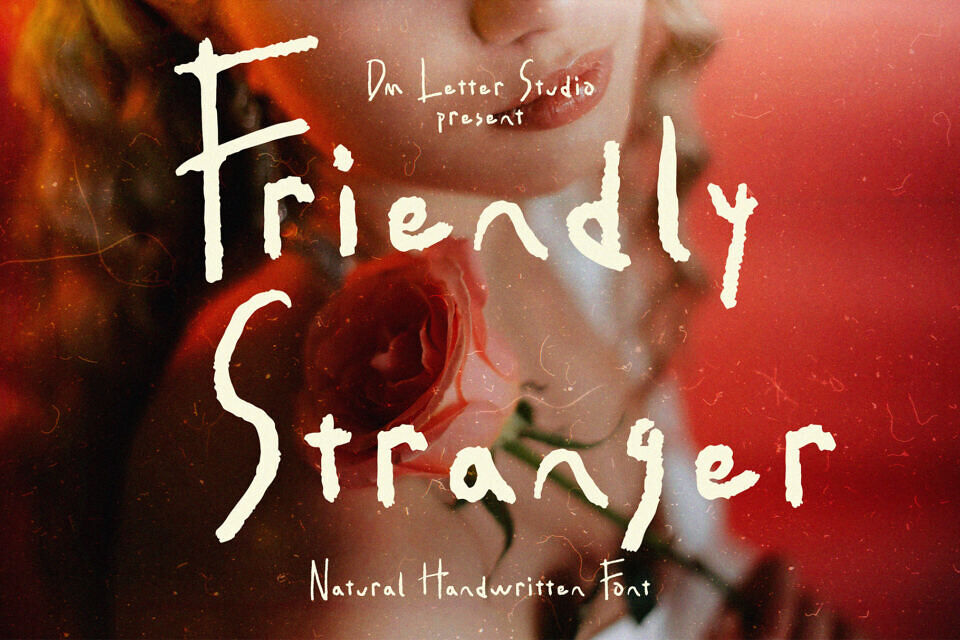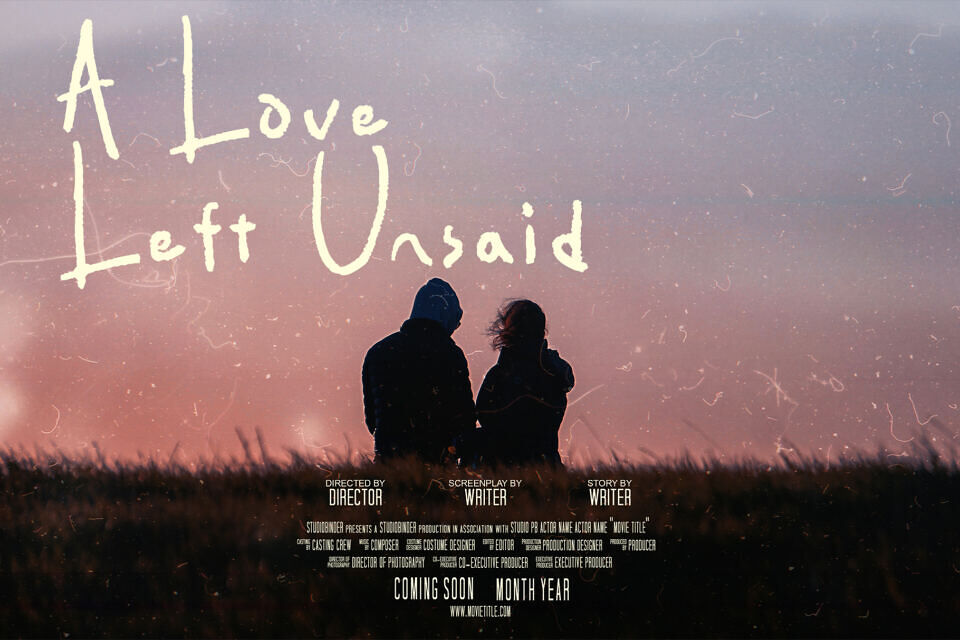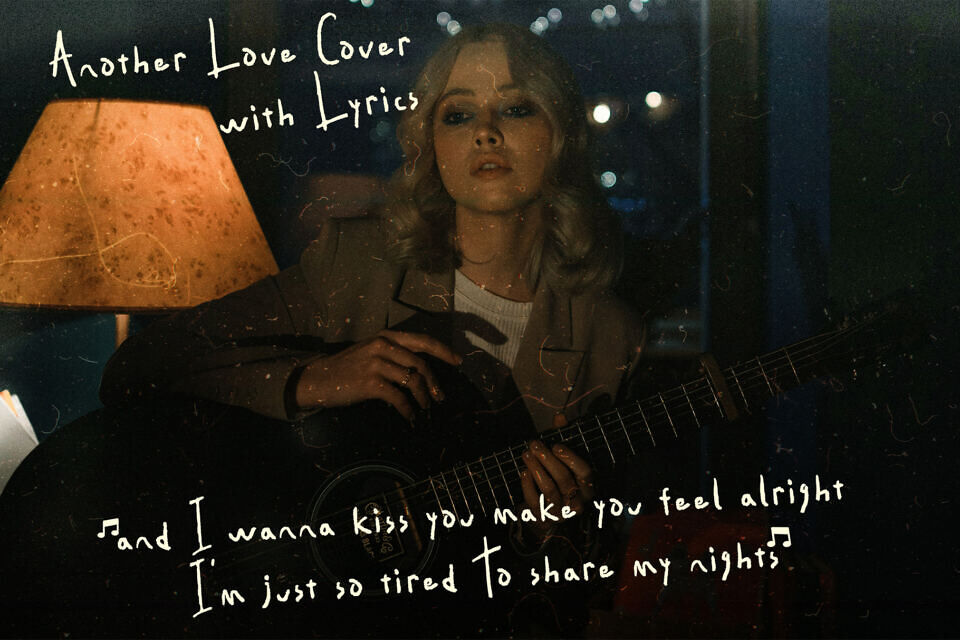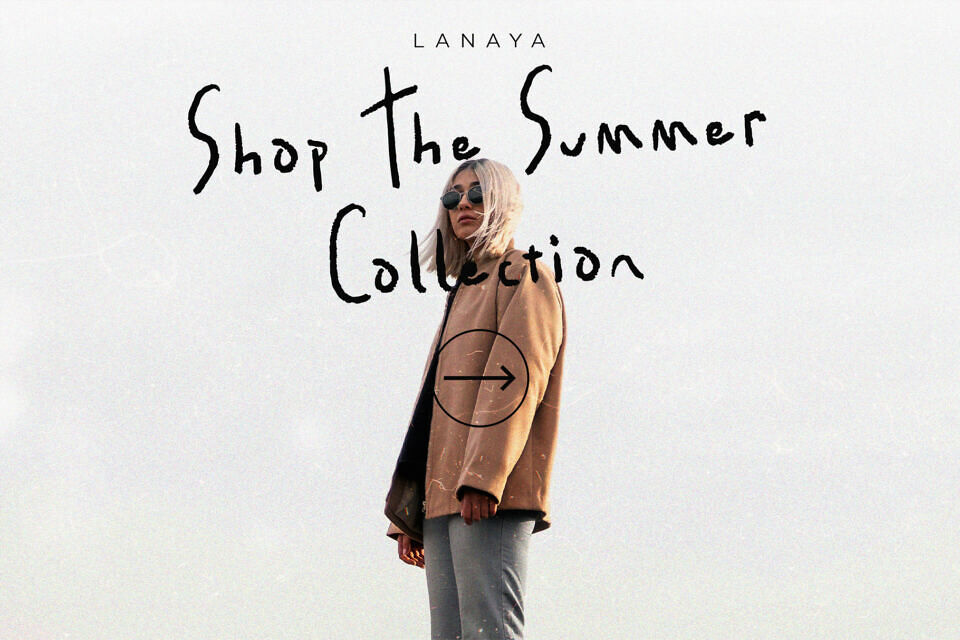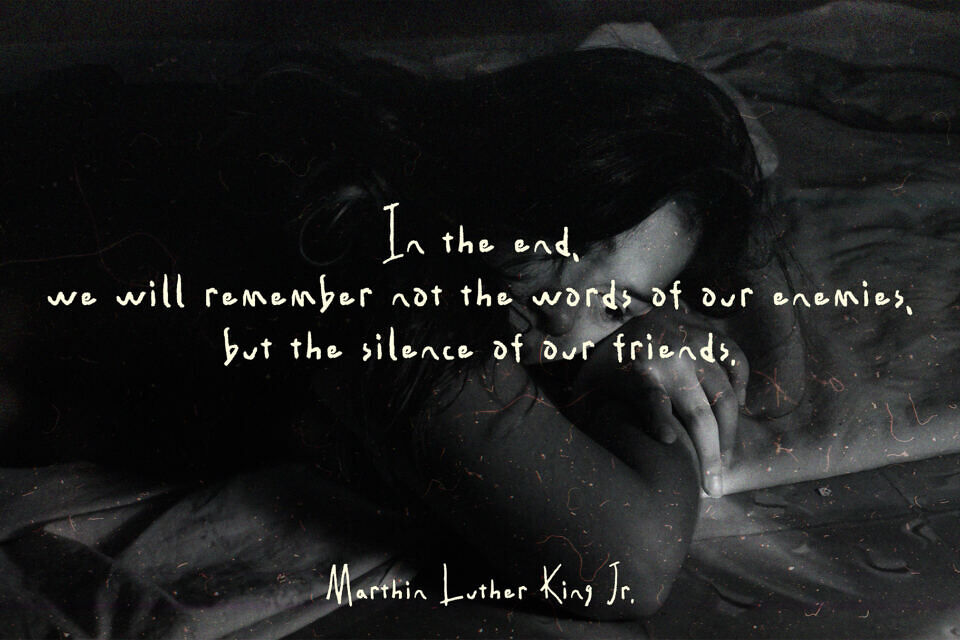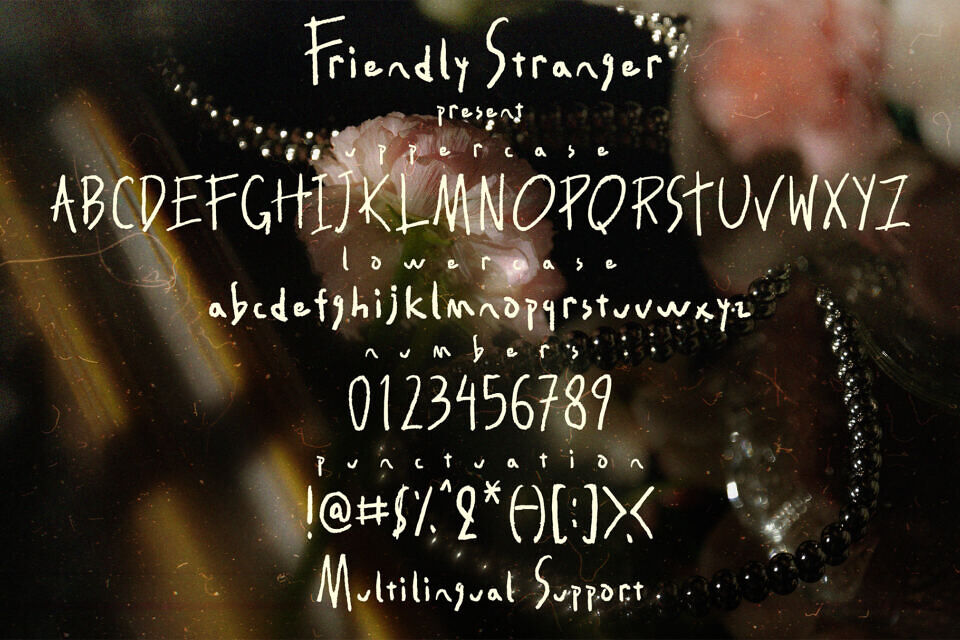
Friendly Stranger is a warm and approachable handwritten font, perfect for adding a natural, human touch to your creative projects.
Its smooth strokes and informal flow mimic real handwriting, making it ideal for branding, journaling, packaging, or heartfelt designs. Whether you’re designing social media graphics or personal stationery, this font delivers an authentic, friendly vibe.